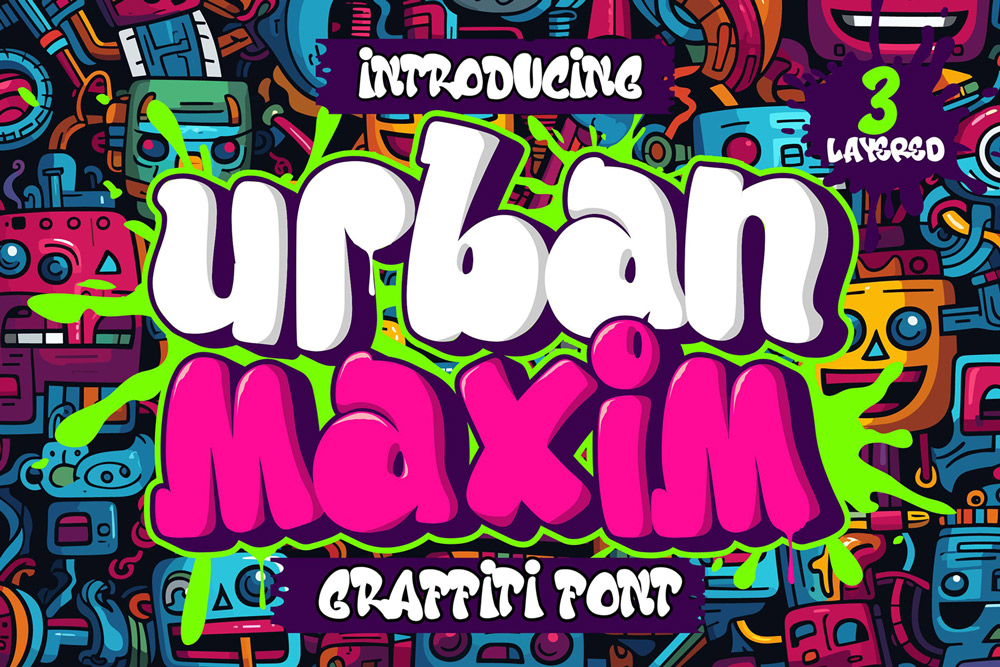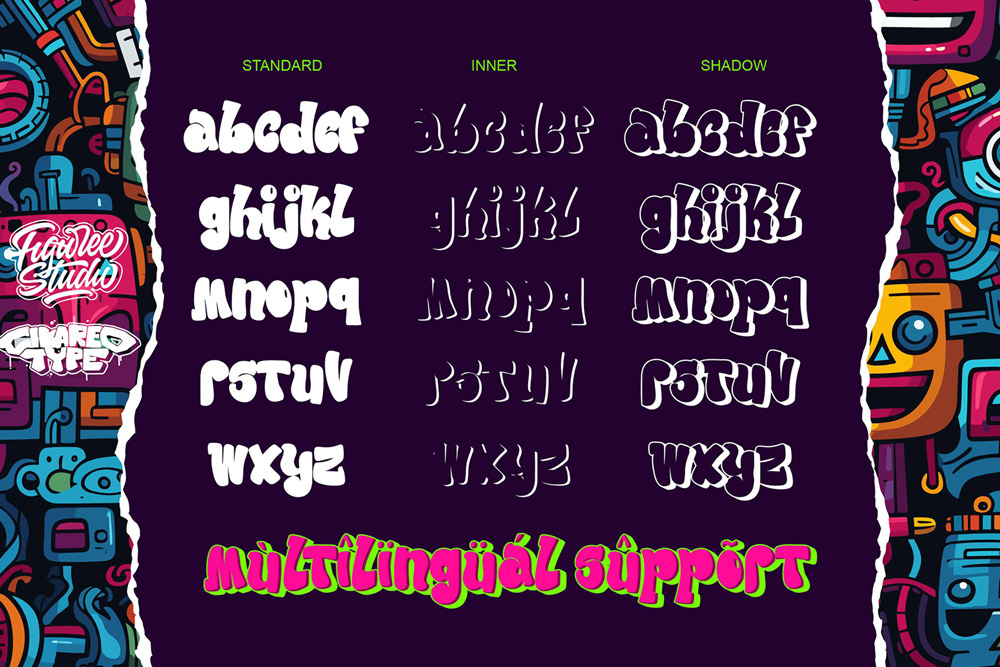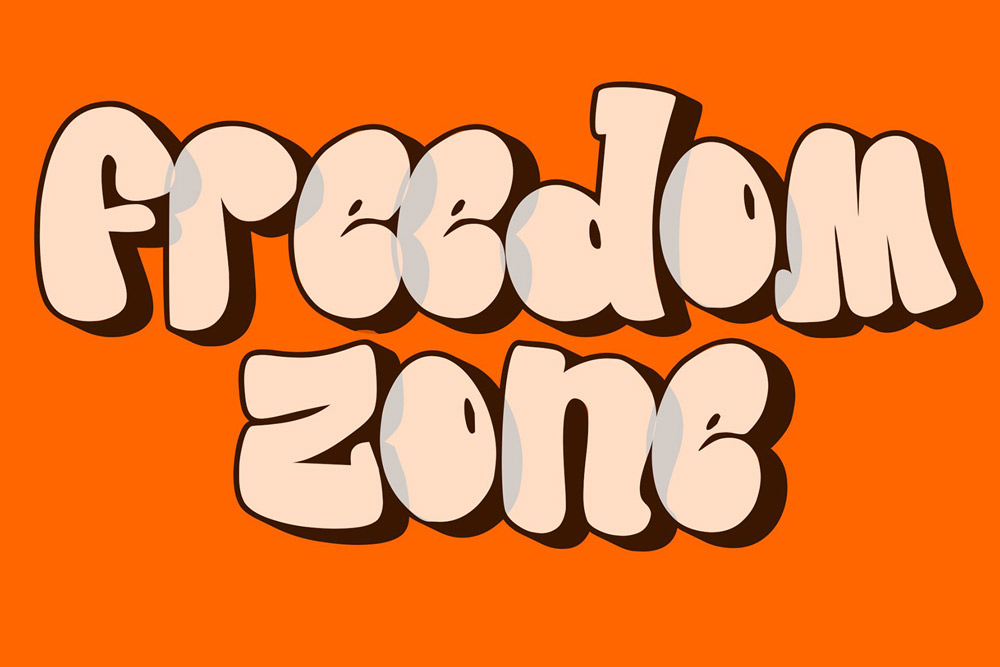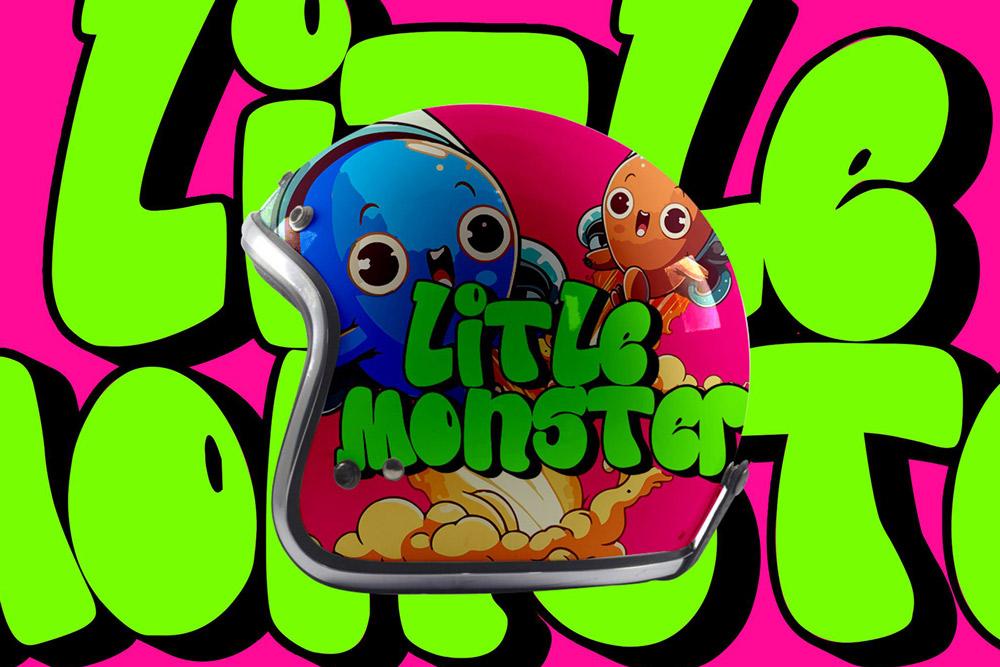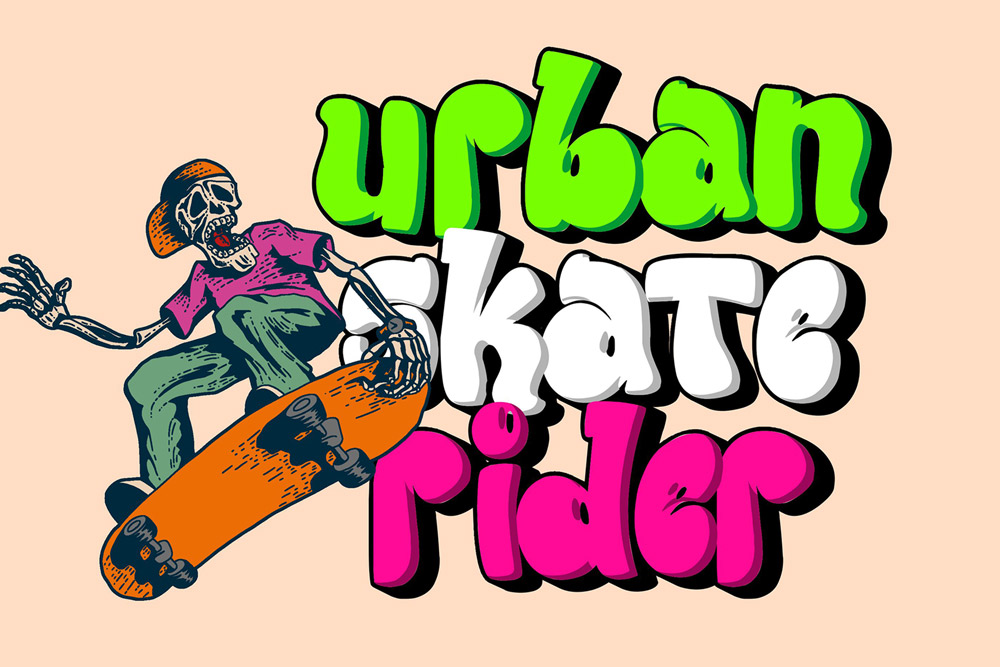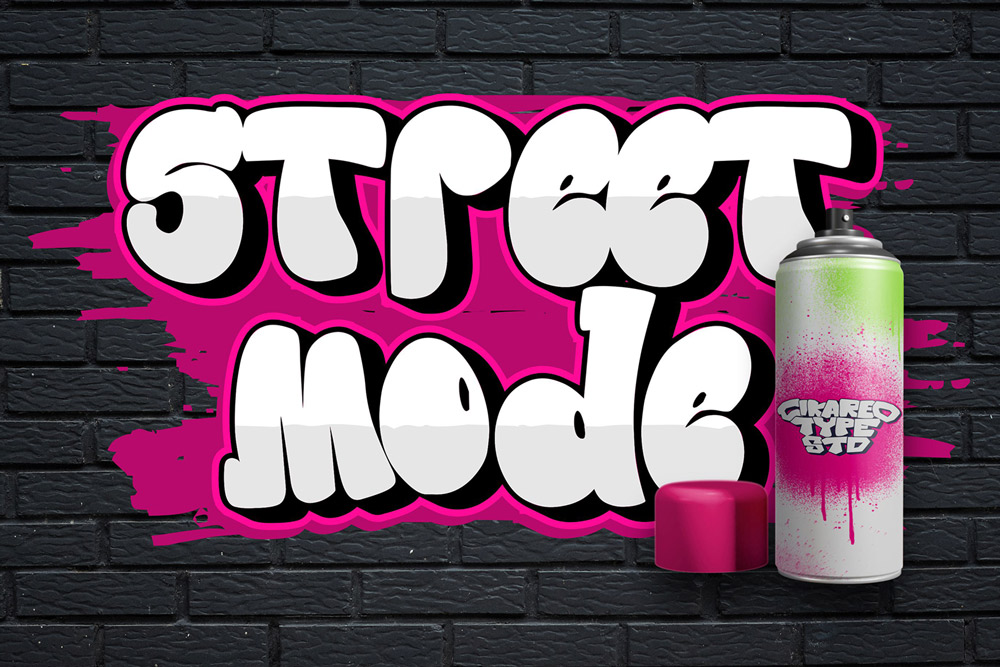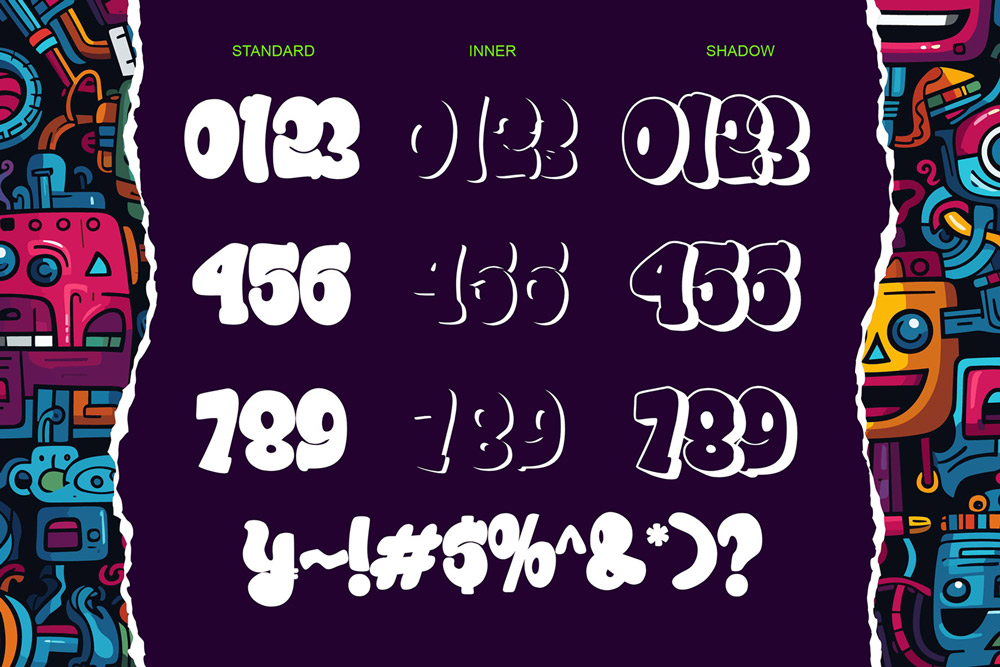
About Urban Maxim
Urban Maxim is a bold and futuristic graffiti font crafted to deliver strong 3D depth and layered urban aesthetics. Designed for creators who demand impactful typography, this 3D graffiti font transforms simple text into visually powerful compositions. Whether you’re working on streetwear branding, poster design, or digital campaigns, Urban Maxim graffiti font provides a modern and dynamic visual identity.
This layered graffiti font is built with precision and creativity, allowing designers to easily create dimensional typography without complicated effects. With its structured design and strong presence, Urban Maxim stands out as a professional urban graffiti font for both commercial and creative use.
A 3D Graffiti Font with Depth and Power
Urban Maxim graffiti font is designed with a layered system that creates realistic depth and dimension. This 3D graffiti font allows you to combine multiple layers to achieve bold shadow effects, inner highlights, and strong outlines. The result is a visually rich graffiti font that feels alive and immersive.
Unlike flat typography, this layered graffiti font gives your designs a sense of volume and energy. It’s perfect for projects that require strong visual impact, such as branding, merchandise, and promotional graphics using an urban graffiti font style.
Built for Modern Urban Design
Urban Maxim graffiti font merges classic street art influence with modern 3D typography techniques. This urban graffiti font maintains the raw essence of graffiti while introducing clean layering for professional results.
The bold letterforms ensure readability, while the layered structure enhances visual depth. This makes Urban Maxim a versatile graffiti display font that works across various design applications, from digital media to print.
Complete Character Set & Typography Features
Urban Maxim – 3D Layered Graffiti Font includes everything you need for professional typography.
– Uppercase Characters
Strong uppercase letters designed with authentic graffiti font style for bold and impactful visuals.
– Multilingual Support
Supports multiple languages, making this graffiti font suitable for global branding and international projects.
– Numbers & Punctuation
Includes a complete set of numbers and punctuation for flexible design applications using this urban graffiti font.
- Bold 3D graffiti font design
- Layered system for depth and dimension
- Includes Regular, Shadow, and Inner styles
- High readability for display typography
- Perfect for urban branding and streetwear
- Easy-to-use layering for creative flexibility
Why Designers Love Urban Maxim
Designers love Urban Maxim graffiti font because it simplifies the creation of complex 3D typography. This layered graffiti font allows designers to build depth and dimension without needing advanced editing skills.
Another reason this 3D graffiti font is محبوب is its versatility. It works perfectly for bold branding, merchandise, and digital content. The layered styles provide endless customization options, making Urban Maxim a reliable urban graffiti font for modern creatives.
The combination of structure and creativity also makes this graffiti display font highly effective. It delivers strong visual impact while remaining easy to use and adaptable across different projects.
Perfect For Creative Projects
Urban Maxim graffiti font is ideal for:
- Streetwear branding
- Graffiti posters and flyers
- Music album covers
- Social media graphics
- Logo design with 3D urban style
- Merchandise and apparel
If you’re looking for a 3D graffiti font that combines boldness and flexibility, Urban Maxim is the perfect choice.
Pairing Urban Maxim graffiti font with a dripping style creates a strong contrast between structured layers and raw textures, resulting in a powerful graffiti font combination.
Designed for Modern Urban Creators
In today’s design world, having a distinctive graffiti font is essential. Urban Maxim gives you the tools to create bold, dimensional visuals that stand out. Its layered system ensures your designs remain professional while maintaining a strong urban identity.
Urban Maxim – 3D Layered Graffiti Font is more than just a typeface—it’s a complete creative system. With its bold shapes and layered depth, this graffiti font transforms your typography into a powerful visual experience.
If you want a 3D graffiti font that delivers impact, flexibility, and modern urban style, Urban Maxim is your ultimate choice. Elevate your designs, add depth to your typography, and create visuals that truly stand out.